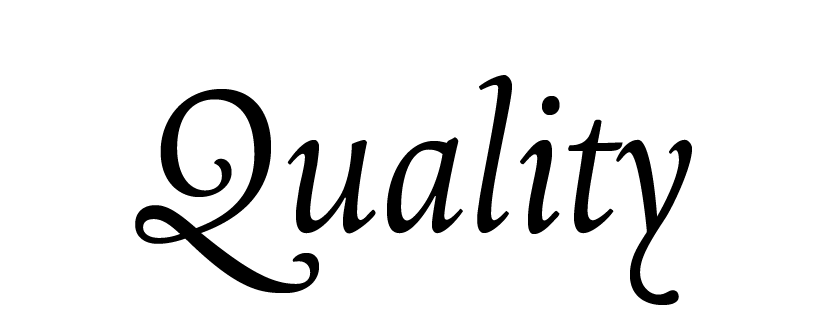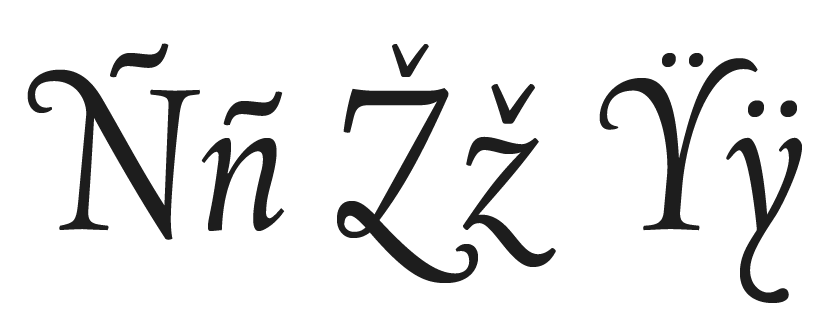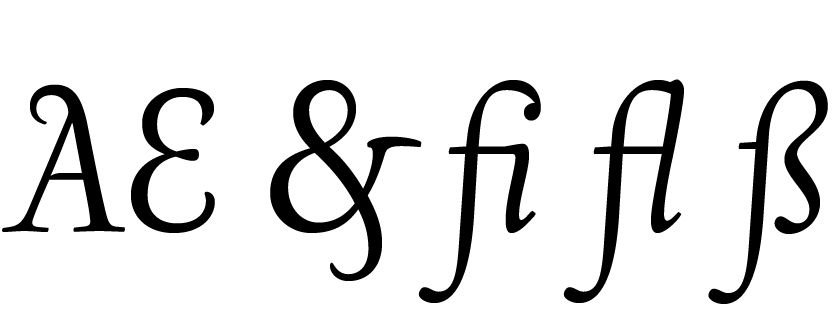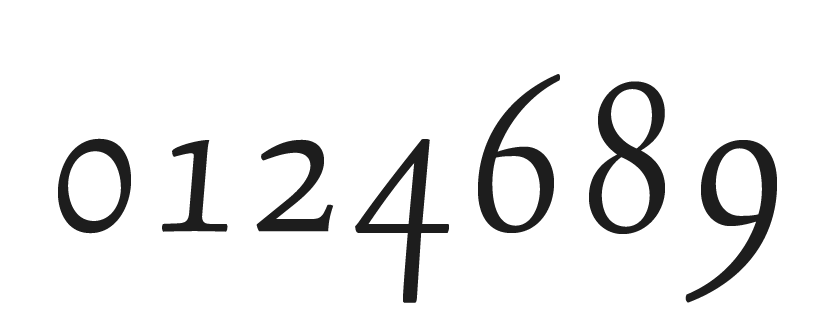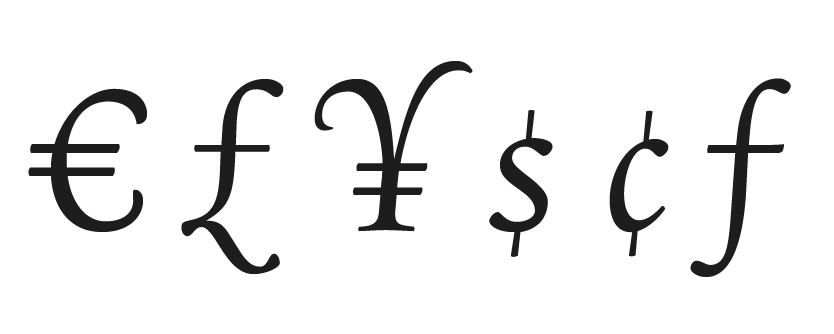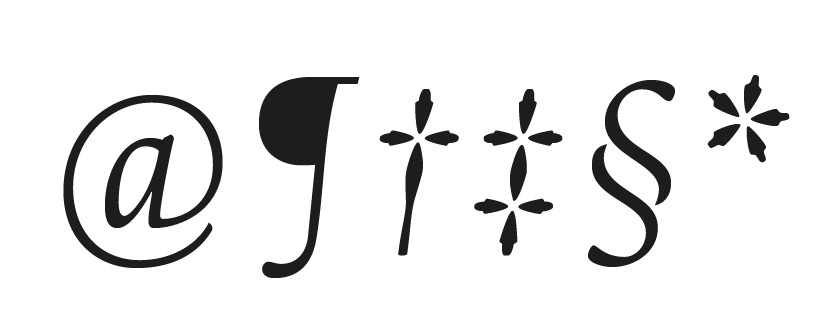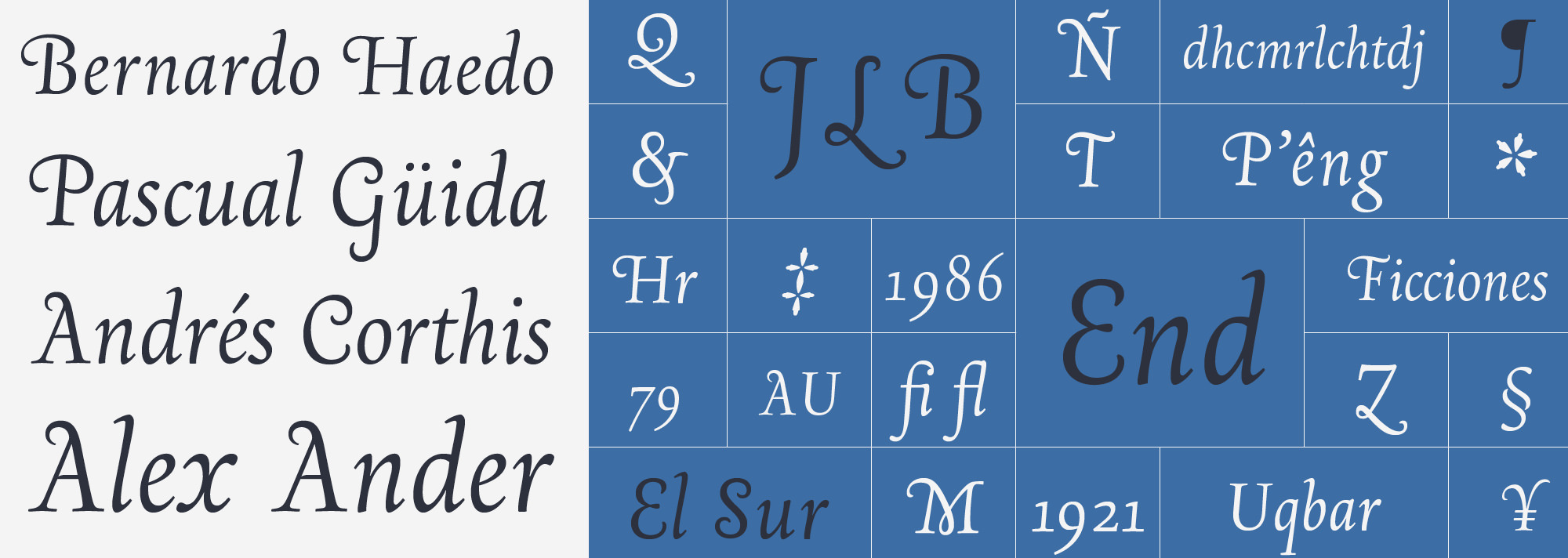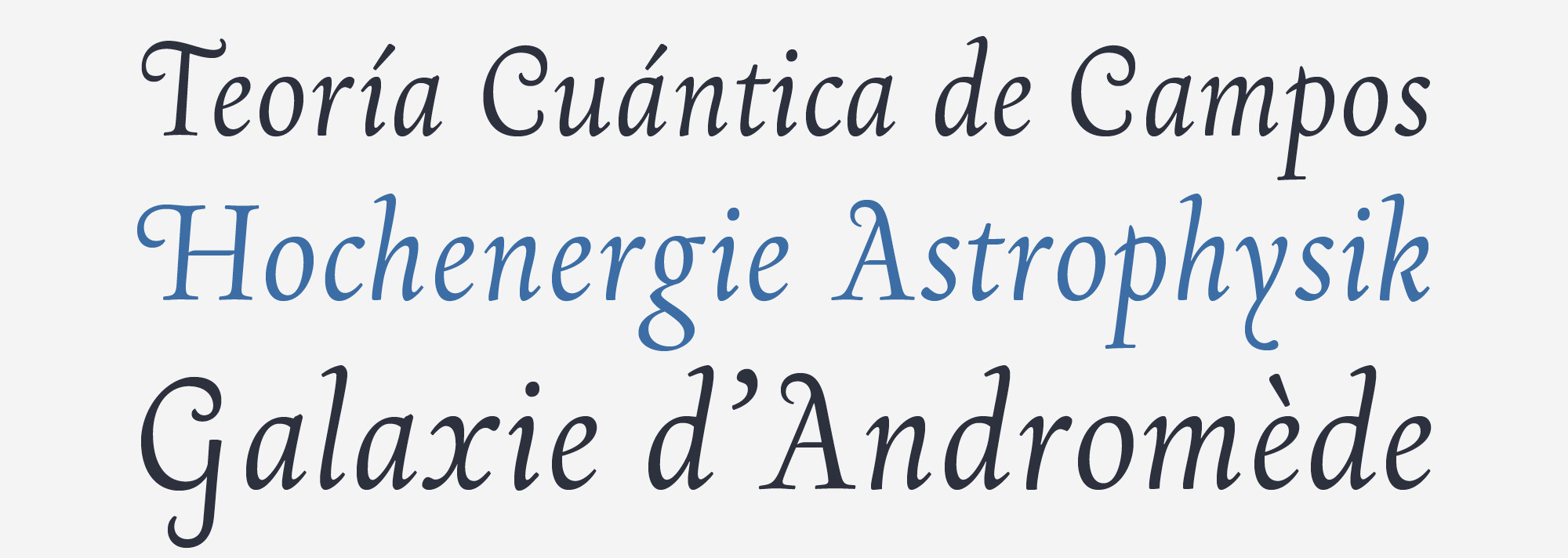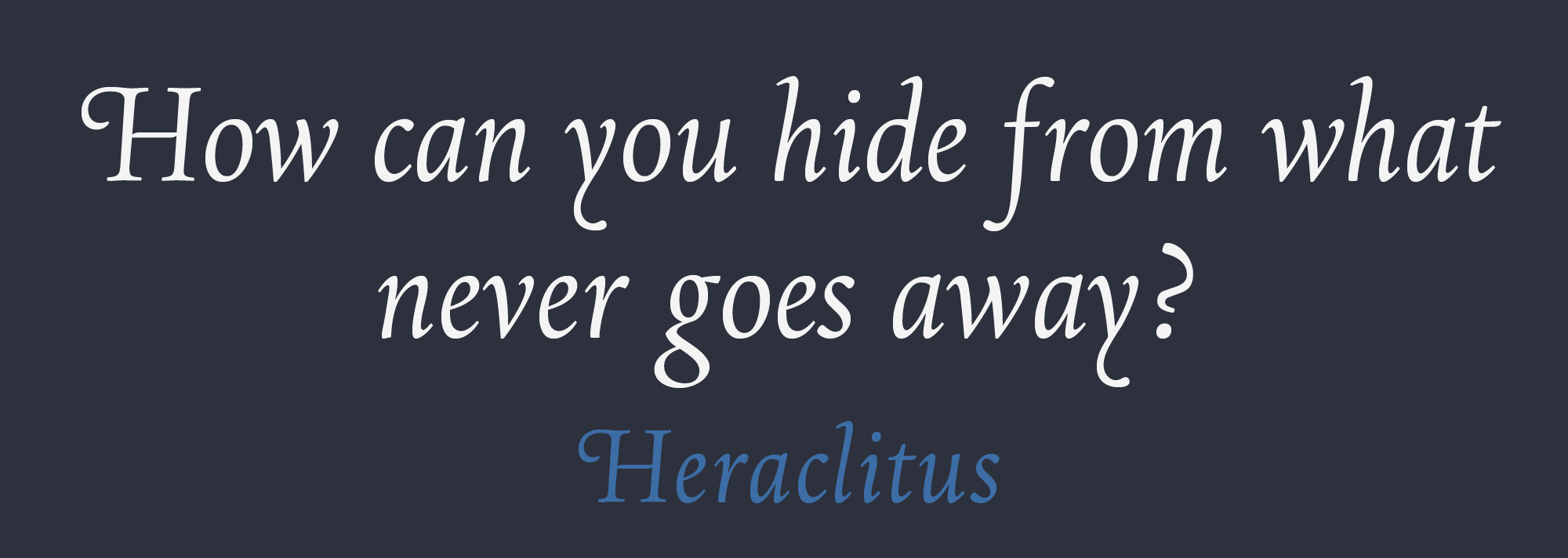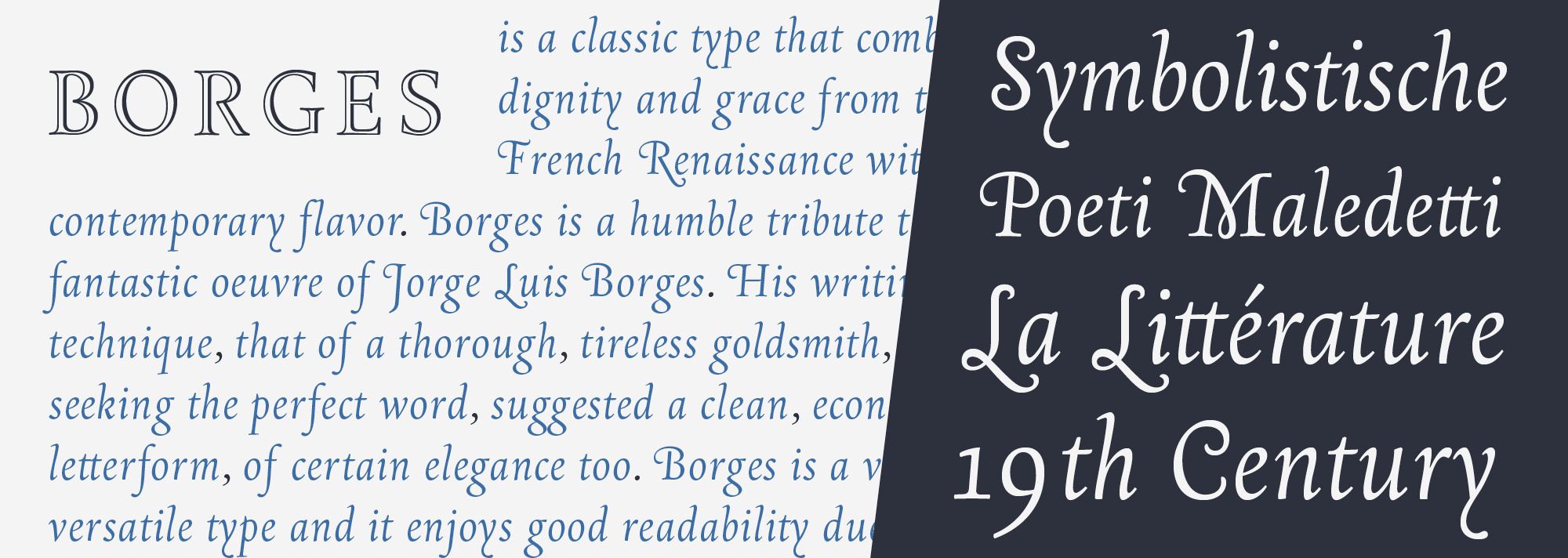
Borges Poema
The moon also illuminates the flower thieves.
A classic & modern chancery cursive
Borges Poema, the ultimate addition to the Borges type family, is a contemporary chancery that can be useful when seeking a delicate atmosphere. It can build a very dignified text, with a generous leading, but it will show its charm if used at short texts, headings and titlings, invitation cards and other pieces where elegance is a priority.
Borges Poema
Designed by Alejandro Lo Celso.
modern chancery style
standard ligatures
elegant oldstyle figures
basic monetaries
standard editorial glyphs